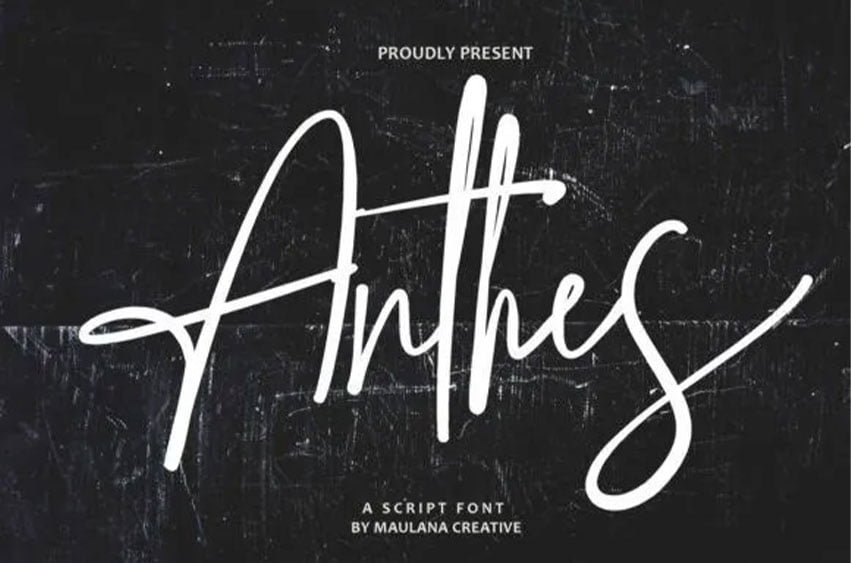
Anthes Font is an exquisite handwritten font, masterfully designed to become a true favorite. It maintains its classy calligraphic influences while feeling contemporary and fresh. Fall in love with it and bring your projects to the highest levels!